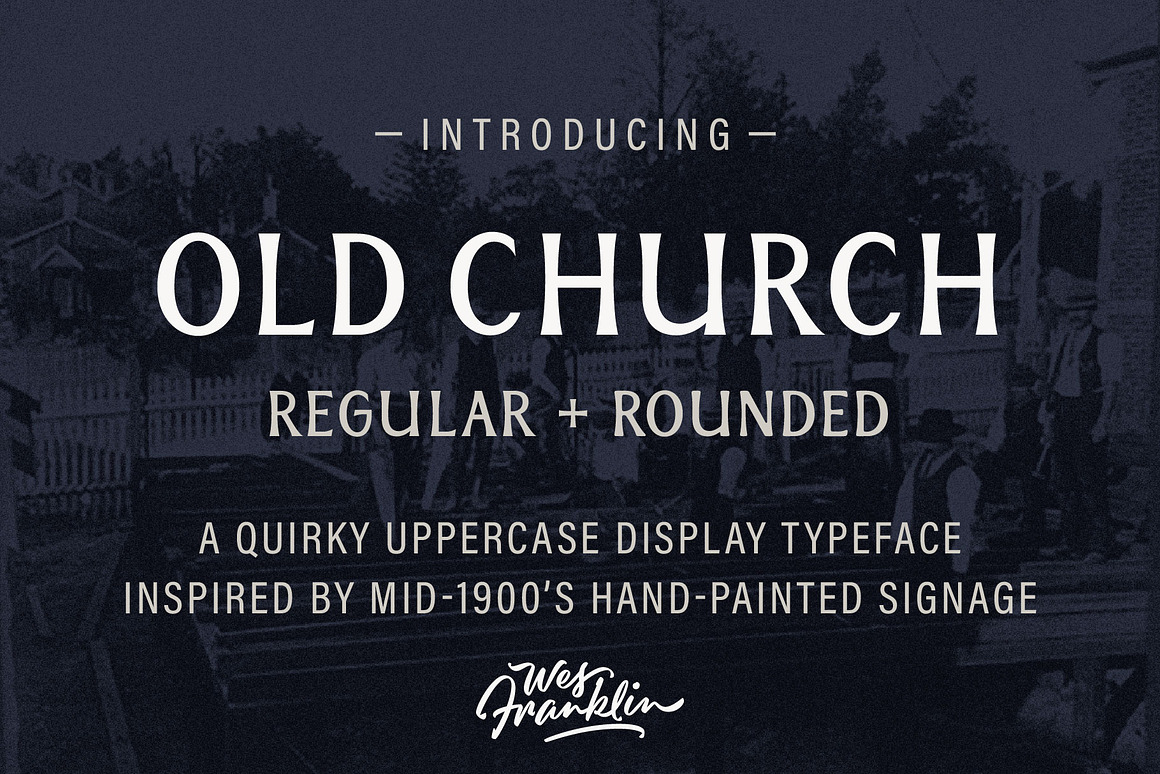
Old Church - Serif Display Typeface
Old Church Serif Display Typeface is perfect for religious institution branding, historical church communications, sacred music publications, theological seminary materials, religious heritage organizations, and spiritual retreat centers. This reverent typeface excels in biblical study guides, church bulletin designs, religious ceremony programs, and any application where sacred tradition and spiritual dignity create meaningful connections with faith communities and religious scholars.
What makes Old Church Serif Display Typeface so exciting is its exceptional ability to embody the timeless reverence and sacred authority of traditional church typography through gracefully carved letterforms that honor centuries of religious manuscript tradition. The font features ecclesiastical proportions, sacred character details, and spiritual elegance that reflect the solemnity and beauty essential to religious communication. Its holy presence makes it perfect for institutions preserving and celebrating sacred heritage.
Old Church Serif Display Typeface comes in a sacred family including Light, Regular, Medium, Bold, and Cathedral weights. Each style features complete uppercase and lowercase character sets, religious symbols, sacred numerals, and ecclesiastical punctuation marks. The font family also includes liturgical alternates, sacred ligatures, and cathedral variations that allow designers to create truly reverent communications with spiritual appeal and professional religious quality.
This distinguished typeface transforms religious communications into powerful expressions of faith tradition and sacred wisdom. Old Church Serif Display Typeface Free Download provides religious organizations and faith-based institutions with essential typography that honors sacred traditions while serving contemporary spiritual communication needs. Whether you're developing materials for churches, creating publications for theological studies, or designing ceremonial documents for religious occasions, this font delivers authentic sacred resonance with ecclesiastical dignity.
The font's sacred character makes it particularly effective for churches, religious schools, theological seminaries, and faith-based organizations. Its reverent readability ensures that Old Church Serif Display Typeface communicates clearly while maintaining its distinctive spiritual personality. The font's ability to evoke reverence and sacred tradition makes it an invaluable sanctuary for any project seeking to honor religious heritage and connect with faith communities through the timeless appeal of sacred typography, spiritual wisdom, and the enduring beauty of ecclesiastical design and religious manuscript tradition.